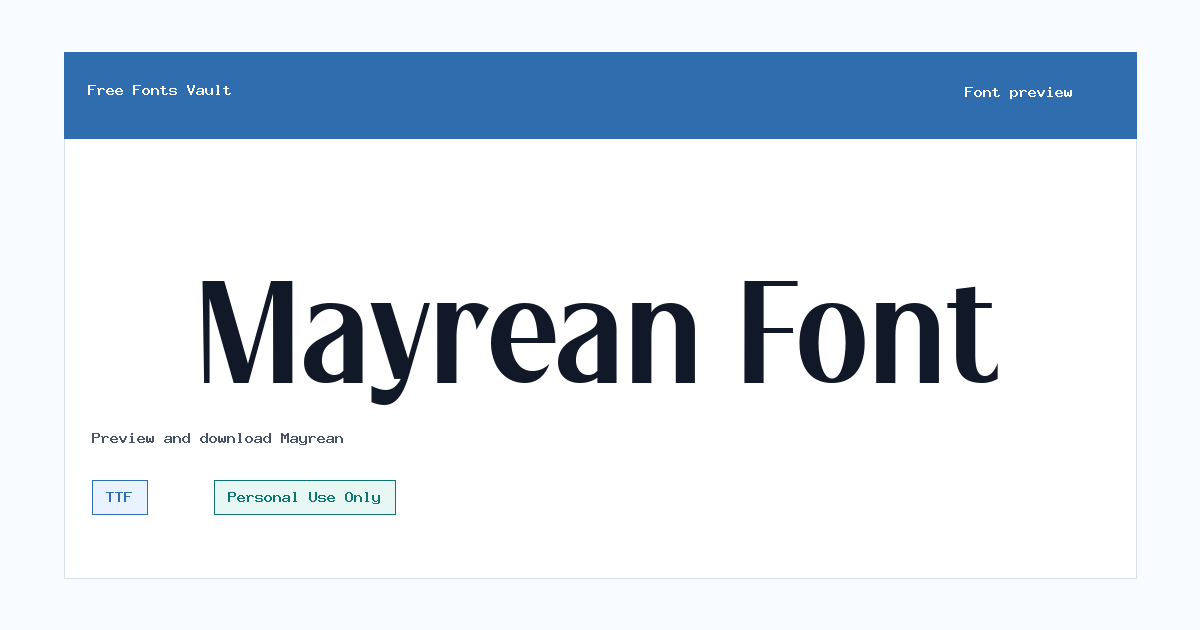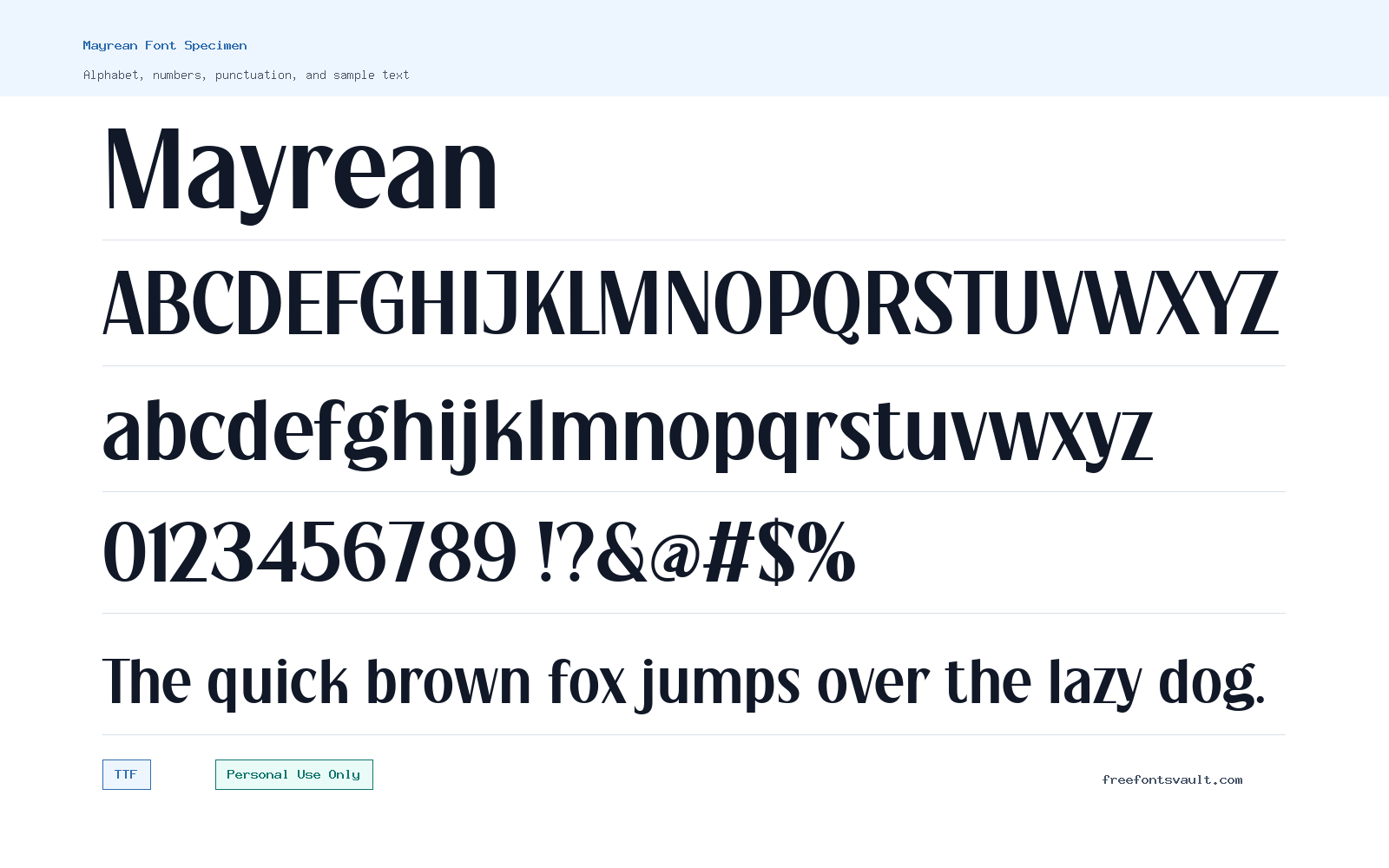
Mayrean
- Designer Variatype
- Foundry Variatype
Mayrean font.
Mayrean is a sans serif font from Variatype with a Personal Use Only license. It is a good choice to preview when you need a clean, modern text style for non-commercial design drafts, personal graphics, or layout testing.
About Mayrean Font
Mayrean is listed as a sans serif typeface, so it is best approached as a clean display-and-text option rather than a decorative script or vintage serif. The regular TTF file gives you a straightforward starting point for testing headlines, short labels, social graphics, and simple branding mockups. Because only the regular weight is included, Mayrean works best when the design does not require a full family with bold, italic, or multiple weight choices. Use the preview tool to see how its spacing, letter shapes, and proportions behave with your own words before building a full design around it.
For visitors comparing fonts, Mayrean is most useful in short to medium text settings where a sans serif can keep the layout tidy. Try it in title case, all caps, and sentence case, because each setting can change the tone of a font quickly. If you plan to use it for body copy, test a real paragraph at the size you need; many single-style fonts look sharp in headings but need careful spacing for longer reading. Pair it with a quiet serif or a neutral sans serif if your design needs contrast, and avoid mixing it with another attention-heavy display font unless the project is intentionally bold.
- Sans serif style suited to clean personal design projects, previews, and layout mockups.
- Personal posters, social media graphics, quote images, and simple title layouts.
- Non-commercial branding concepts, presentation covers, website mockups, and typography experiments.
Mayrean is credited to Variatype, with Variatype also listed as the foundry.
What kind of font is Mayrean?
Mayrean is listed as a sans serif font. That makes it a practical option to test for clean headings, short text, personal graphics, and layout drafts.